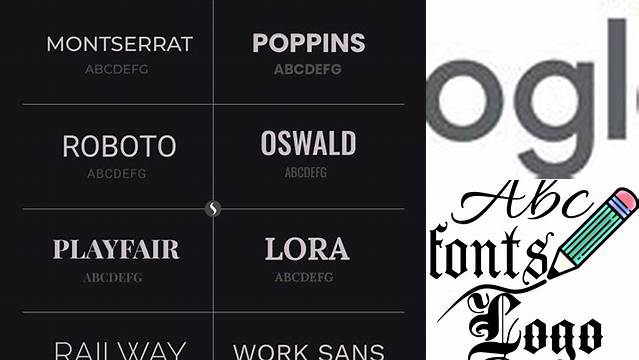
Google Fonts Logo Maker: Design Your Brand
So, you're looking to create a logo, huh? And you want to leverage the power of Google Fonts? Awesome! You've come to the right place. Let's dive deep into how you can use Google Fonts and various logo makers to craft a stunning brand identity. This article is your ultimate guide, breaking down everything you need to know, from selecting the perfect font to using online tools effectively. Forget generic logos; let's make something that truly represents you.
1. Understanding the Basics of Google Fonts
Google Fonts is a treasure trove for designers and creators, offering a vast library of free, open-source fonts. Understanding the basics is crucial before you jump into logo creation. These fonts are not only free but also incredibly versatile, suitable for everything from website headings to print materials. When you're thinking about your logo, the font is the cornerstone. It conveys the personality and tone of your brand. Is it playful? Serious? Elegant? The right font will communicate all of this at a glance. We'll explore different types of fonts – serif, sans-serif, display, and handwriting – and how each can impact your logo's overall feel. Think of it this way: your font choice is like your brand's voice. You want it to be clear, consistent, and captivating.
Choosing the right font can be a game-changer for your brand identity. Google Fonts gives you a huge playground to experiment with different styles and combinations. But with so many options, it can feel overwhelming. Don't worry, guys! We'll break it down step by step. We'll look at specific font pairings that work well together, giving your logo a professional and polished look. We’ll also discuss the importance of readability. A beautiful font is useless if your audience can’t easily read your logo. So, let’s make sure your logo is not only visually appealing but also highly functional. Remember, your logo is often the first impression people have of your brand, so make it count!
2. Exploring Free Logo Makers with Google Fonts Integration
Alright, let's get into the nitty-gritty. There are tons of free logo makers out there, but not all of them play nicely with Google Fonts. We need to find the gems that do. Exploring free logo makers with Google Fonts integration is a smart move because it gives you a fantastic blend of flexibility and cost-effectiveness. These tools typically offer drag-and-drop interfaces, making the design process super user-friendly, even if you're not a professional designer. We’ll highlight some of the top platforms, like Canva, LogoMaker, and DesignEvo, and show you how to use their Google Fonts integration to your advantage.
We'll also discuss the pros and cons of using free logo makers. Sure, they're free (which is awesome!), but they might have limitations in terms of customization or file formats. Knowing these trade-offs upfront will help you make informed decisions. We'll look at features like pre-designed templates, icon libraries, and color palettes, and how you can tweak them to create a unique logo that truly stands out. Plus, we’ll cover tips on avoiding common pitfalls, like using generic templates without personalization. Let's ensure your logo doesn't look like everyone else's! Remember, a good logo should be memorable and instantly recognizable. So, let’s get hands-on and start exploring these free tools to unleash your creative potential.
3. Step-by-Step Guide to Designing a Logo with Google Fonts
Okay, time for action! Let’s walk through a step-by-step guide to designing a logo with Google Fonts. This isn’t just about picking a font and slapping it on a page; it's about crafting a cohesive visual identity. We'll start with brainstorming – defining your brand’s personality, target audience, and key message. What feelings do you want your logo to evoke? Professionalism? Fun? Trust? These are crucial questions to answer before you even open a logo maker. Then, we'll move on to selecting the right font. We'll explore font pairings, contrast, and hierarchy, showing you how to combine different Google Fonts to create a visually dynamic logo.
Next, we'll dive into the practical steps of using a logo maker. We’ll cover everything from setting up your canvas to adding shapes, icons, and colors. We'll emphasize the importance of white space and balance – key elements in any great logo design. We'll also discuss the importance of creating variations of your logo – horizontal, vertical, and icon-only – to ensure it looks great across different platforms and applications. And finally, we'll cover exporting your logo in the right formats (like PNG and SVG) for web and print use. By the end of this guide, you’ll have a clear roadmap for creating a logo you're proud of! Remember, it's all about the details. So, let's roll up our sleeves and get started.
4. Choosing the Right Font Style for Your Brand
The style of font that you use can significantly impact the feel of your logo. Choosing the right font style for your brand is about matching the font's personality to your brand's identity. For example, a serif font (like Times New Roman or Georgia) often conveys a sense of tradition, authority, and sophistication. These are great for businesses aiming for a classic or formal look. On the other hand, a sans-serif font (like Arial or Helvetica) tends to feel more modern, clean, and approachable. These work well for tech companies or brands that want to project a contemporary vibe.
We’ll also explore display fonts, which are designed to be eye-catching and attention-grabbing. These are great for logos but should be used sparingly, as they can be less readable in body text. And let's not forget handwriting fonts, which can add a personal and creative touch to your logo. However, these should be chosen carefully to ensure they remain legible and professional. We'll provide examples of successful logo designs that use different font styles effectively. Remember, the right font not only looks good but also communicates your brand's values and personality. So, let's make sure you're sending the right message.
5. Best Google Fonts for Logo Design in 2024
Staying up-to-date with the latest font trends can give your logo a fresh and modern edge. The best Google Fonts for logo design in 2024 include a mix of timeless classics and emerging favorites. We'll highlight some top contenders, like Montserrat, Open Sans, Roboto, and Lato, which are known for their versatility and readability. These fonts are like the Swiss Army knives of the font world – they can adapt to almost any brand aesthetic. But we’ll also explore some more unique and expressive options, like Playfair Display, Raleway, and Oswald, which can add character and flair to your logo.
We’ll discuss why these fonts are particularly well-suited for logo design, focusing on factors like legibility, scalability, and visual appeal. We'll also look at how these fonts perform in different contexts – both online and in print. And we’ll share examples of brands that are using these fonts effectively in their logos. Remember, a great logo font is one that not only looks good but also stands the test of time. So, let’s make sure you're choosing a font that will keep your logo looking fresh and relevant for years to come. It’s all about striking that perfect balance between trendiness and timelessness.
6. Combining Google Fonts for a Unique Logo
One of the best ways to create a truly unique logo is by combining different Google Fonts. Combining Google Fonts for a unique logo is an art form in itself. It's about finding fonts that complement each other, creating a visual harmony that elevates your brand. The key is to create contrast without clashing. For example, you might pair a bold, attention-grabbing font for your brand name with a simpler, more readable font for your tagline or supporting text. Think of it like a duet – the fonts should sing together, not fight for the spotlight.
We'll provide specific examples of font pairings that work well together, such as pairing a serif font (like Merriweather) with a sans-serif font (like Open Sans). We'll also discuss the importance of hierarchy – using different font sizes, weights, and styles to guide the viewer's eye. We'll share tips on how to experiment with different combinations and how to avoid common pitfalls, like using too many fonts or choosing fonts that are too similar. Remember, the goal is to create a logo that is visually interesting and easy to read. So, let’s explore the endless possibilities of font pairing and create a logo that truly stands out from the crowd. It’s all about finding that perfect balance and visual harmony.
7. The Psychology of Fonts in Logo Design
Fonts aren't just about aesthetics; they also carry psychological weight. The psychology of fonts in logo design is a fascinating area that delves into how different typefaces evoke different emotions and associations. For example, bold, geometric fonts often convey strength, stability, and confidence, while softer, more rounded fonts can feel friendly, approachable, and playful. Script fonts can evoke elegance, creativity, and a personal touch, but they need to be used judiciously to ensure readability.
We'll explore how different font families – serif, sans-serif, display, and script – impact brand perception. We’ll discuss how the choice of font can influence how your target audience perceives your brand. Do you want to be seen as trustworthy and reliable? Innovative and cutting-edge? The font you choose can help you communicate these qualities. We'll also look at how cultural factors can influence font perception. What might be considered a sophisticated font in one culture could be seen as old-fashioned in another. Remember, your logo is a powerful visual symbol, and the font plays a crucial role in shaping its message. So, let’s use the psychology of fonts to our advantage and create a logo that resonates with your target audience on a deeper level.
8. Scalability: Ensuring Your Logo Looks Great Everywhere
Your logo needs to look good not just on a website but also on business cards, social media profiles, and even large-format prints. Scalability: Ensuring your logo looks great everywhere is a critical aspect of logo design. A logo that looks crisp and clear on a computer screen might become pixelated or distorted when scaled up for a billboard. This is where vector graphics come into play. Vector graphics are based on mathematical equations, which means they can be scaled infinitely without losing quality. This is in contrast to raster graphics (like JPEGs), which are made up of pixels and can become blurry when enlarged.
We'll discuss the importance of designing your logo in a vector format, such as SVG or EPS. We’ll explain how to export your logo in different sizes and formats for various applications. We'll also cover the importance of testing your logo on different devices and platforms to ensure it looks great everywhere. We'll share tips on creating simplified versions of your logo for small spaces, like favicons or app icons. Remember, a scalable logo is a versatile logo, and versatility is key to a strong brand identity. So, let’s make sure your logo looks its best, no matter where it appears. It’s all about ensuring consistency and quality across all your branding materials.
9. Color Psychology in Logo Design with Google Fonts
Colors carry deep meanings and can significantly affect how your logo is perceived. Color psychology in logo design with Google Fonts is all about understanding how different colors evoke different emotions and associations, and then using that knowledge to create a logo that resonates with your target audience. For example, blue often conveys trust, reliability, and professionalism, making it a popular choice for corporate logos. Red can evoke excitement, passion, and energy, but it can also be associated with danger or aggression, so it should be used carefully. Green is often associated with nature, health, and growth, while yellow can convey optimism, happiness, and warmth.
We'll explore the meanings of different colors and how they can be combined to create different effects. We’ll discuss how to choose a color palette that aligns with your brand's personality and values. We'll also look at the importance of considering cultural differences in color perception. What might be a positive color in one culture could be seen as negative in another. We'll also cover how to ensure your logo looks good in both color and black and white. Remember, color is a powerful tool in logo design, and when used effectively, it can help you create a logo that is both visually appealing and emotionally resonant. So, let’s dive into the world of color and create a palette that perfectly captures your brand’s essence.
10. The Role of Icons and Symbols in Logo Design
Sometimes, a simple font-based logo isn't enough. The role of icons and symbols in logo design is to add visual interest, communicate your brand's message more effectively, and create a memorable identity. An icon can be a graphical representation of your product, service, or industry, or it can be an abstract symbol that embodies your brand's values. For example, a travel agency might use an icon of a globe or a plane, while a tech company might opt for a more abstract, geometric symbol.
We'll discuss how to choose the right icon for your logo and how to integrate it seamlessly with your chosen Google Font. We’ll explore different icon styles – minimalist, geometric, illustrative – and how they can impact your logo's overall feel. We'll also cover the importance of ensuring your icon is scalable and looks good in both color and black and white. We'll share tips on creating your own icons or finding high-quality, royalty-free icons online. Remember, an icon can be a powerful visual shorthand for your brand, but it should always complement your chosen font and overall design. So, let’s explore the possibilities of icon integration and create a logo that is both visually striking and highly communicative.
11. Creating Variations of Your Logo
One logo isn't enough in today's multi-platform world. Creating variations of your logo is essential for ensuring your brand identity remains consistent and recognizable across different contexts. You'll need a primary logo for your website and general branding materials, but you'll also need variations for smaller spaces, like favicons and social media profiles, and for different orientations, like horizontal and vertical layouts.
We'll discuss the different types of logo variations you should create, including a full logo (with your brand name and tagline), a logo mark (an icon or symbol), and a wordmark (just your brand name). We’ll explain how to adapt your logo for different sizes and aspect ratios without losing legibility or impact. We'll also cover the importance of maintaining consistency across all your logo variations. The color palette, font choices, and overall style should remain consistent, even if the layout or elements change. Remember, versatility is key to a strong brand identity, and having a set of logo variations ensures your brand looks its best, no matter where it appears. So, let’s explore how to create a suite of logos that work together seamlessly and strengthen your brand presence.
12. Using Google Fonts in Dark Mode Logos
Dark mode is increasingly popular, so your logo needs to look great on both light and dark backgrounds. Using Google Fonts in dark mode logos requires careful consideration of contrast and legibility. A font that looks crisp and clear on a white background might become difficult to read on a dark background, especially if it's a light or thin font.
We'll discuss how to choose fonts that work well in dark mode, focusing on factors like weight, spacing, and color. We’ll explain how to adjust your logo's colors for dark mode, ensuring there's sufficient contrast between the text and the background. We'll also look at how to use outlines or shadows to make your logo stand out on dark backgrounds. We'll share examples of logos that have been successfully adapted for dark mode. Remember, a dark mode logo isn't just about inverting colors; it's about creating a visually appealing and highly legible logo that works seamlessly in both light and dark environments. So, let’s explore the nuances of dark mode design and ensure your logo looks its best, no matter the setting.
13. The Importance of White Space in Logo Design
Sometimes, what you leave out is just as important as what you include. The importance of white space in logo design cannot be overstated. White space (also known as negative space) is the empty area around and within the elements of your logo. It's not just unused space; it's a powerful design tool that can enhance legibility, create balance, and add sophistication to your logo.
We'll discuss how to use white space effectively to create a clean, uncluttered logo. We’ll explain how white space can help to draw the viewer's eye to the key elements of your logo. We'll also look at how white space can be used creatively to create hidden meanings or visual illusions. We'll share examples of logos that make masterful use of white space. Remember, white space is not a luxury; it's a necessity for good logo design. It’s the breathing room that allows your logo to stand out and make a lasting impression. So, let’s embrace the power of negative space and create a logo that is both visually appealing and highly effective.
14. Avoiding Common Logo Design Mistakes
Creating a great logo is about more than just aesthetics; it's about avoiding pitfalls that can undermine your brand identity. Avoiding common logo design mistakes is crucial for ensuring your logo is both visually appealing and highly effective. One common mistake is using too many fonts or colors. A logo should be simple and uncluttered, with a limited palette of colors and fonts. Another mistake is using generic clip art or templates without personalization. Your logo should be unique and reflect your brand's personality.
We'll discuss these and other common mistakes, such as choosing a font that is difficult to read, creating a logo that is too complex or detailed, and failing to consider scalability. We’ll explain how to avoid these pitfalls and create a logo that is both professional and memorable. We'll also cover the importance of getting feedback from others before finalizing your logo. Remember, a great logo is one that is simple, memorable, versatile, and relevant to your brand. So, let’s learn from the mistakes of others and create a logo that truly shines.
15. Testing Your Logo with Your Target Audience
What looks good to you might not resonate with your target audience. Testing your logo with your target audience is an essential step in the logo design process. It allows you to gather valuable feedback and ensure your logo is communicating the right message. You can test your logo by showing it to a group of people who represent your target market and asking for their opinions.
We'll discuss how to conduct effective logo testing, including what questions to ask and how to interpret the results. We’ll explain how to use different testing methods, such as surveys, focus groups, and A/B testing. We'll also cover the importance of being open to feedback and willing to make changes based on the results. Remember, your logo is a visual representation of your brand, and it should resonate with your target audience. So, let’s make sure you’re creating a logo that speaks to the people you’re trying to reach.
16. The Legal Aspects of Using Fonts in Logos
It's crucial to understand the licensing terms of any fonts you use in your logo. The legal aspects of using fonts in logos are often overlooked, but they are essential for protecting your brand and avoiding legal issues. Google Fonts are open-source, which means they can be used freely for both personal and commercial purposes. However, it's still a good idea to review the specific licensing terms for each font, just to be sure.
We'll discuss the different types of font licenses and what they allow you to do. We’ll explain how to check the license for a Google Font and ensure you're using it legally. We'll also cover the importance of protecting your logo with a trademark. Remember, your logo is a valuable asset, and it's important to protect your rights to it. So, let’s navigate the legal landscape of font usage and ensure your logo is both creative and legally sound.
17. Google Fonts Logo Maker for Mobile Devices
Designing on the go? Many logo makers have mobile versions. Google Fonts logo maker for mobile devices allows you to create and edit your logo from your smartphone or tablet, giving you the flexibility to work on your branding whenever and wherever inspiration strikes. Mobile logo makers often offer the same features as their desktop counterparts, including access to Google Fonts, icon libraries, and color palettes.
We'll discuss the best mobile logo maker apps that integrate with Google Fonts. We’ll explain how to use these apps effectively to design a professional-looking logo on your mobile device. We'll also cover the pros and cons of mobile logo design, such as the smaller screen size and the potential for distractions. Remember, mobile logo makers are a convenient tool for entrepreneurs and designers on the move, but it's important to use them strategically and ensure your logo looks great on all devices. So, let’s explore the world of mobile logo design and create a logo that is both accessible and visually stunning.
18. Animating Your Logo with Google Fonts
Add a dynamic touch to your brand with an animated logo. Animating your logo with Google Fonts can make your brand stand out and create a memorable impression. An animated logo can be used on your website, social media profiles, and in video content, adding a touch of flair and sophistication to your brand identity.
We'll discuss how to animate your logo using different software and techniques. We’ll explain how to choose the right animations for your logo and brand personality. We'll also cover the importance of keeping your animations subtle and professional. Overly flashy animations can be distracting and detract from your brand's message. Remember, an animated logo is a powerful way to engage your audience and make your brand more memorable, but it should always be used strategically and with good taste. So, let’s explore the possibilities of logo animation and create a brand identity that truly moves.
19. Google Fonts Logo Maker for E-commerce Brands
E-commerce brands need logos that convey trust and professionalism. Google Fonts logo maker for e-commerce brands is a valuable tool for creating a brand identity that resonates with online shoppers. An e-commerce logo should be clean, modern, and easy to recognize, both on your website and on product packaging.
We'll discuss how to choose the right Google Fonts and design elements for your e-commerce logo. We’ll explain how to create a logo that conveys your brand's values and appeals to your target customers. We'll also cover the importance of testing your logo on different devices and screen sizes to ensure it looks great on all e-commerce platforms. Remember, your logo is often the first impression customers have of your e-commerce brand, so it's crucial to make it a good one. So, let’s explore the world of e-commerce logo design and create a brand identity that drives sales.
20. Using Google Fonts for Minimalist Logo Design
Less is often more, especially in logo design. Using Google Fonts for minimalist logo design is a popular approach that focuses on simplicity, clarity, and elegance. A minimalist logo typically features a clean, uncluttered design with a limited palette of colors and fonts. The emphasis is on conveying your brand's message in the most direct and impactful way possible.
We'll discuss how to choose the right Google Fonts and design elements for a minimalist logo. We’ll explain how to use white space effectively to create balance and visual interest. We'll also cover the importance of ensuring your minimalist logo is scalable and works well in different contexts. Remember, minimalist logos can be incredibly powerful, but they require careful attention to detail and a deep understanding of design principles. So, let’s explore the art of minimalism and create a logo that speaks volumes with just a few elements.
21. Google Fonts Logo Maker for Startups
Startups need to make a big impression on a budget. Google Fonts logo maker for startups is a cost-effective way to create a professional-looking brand identity without breaking the bank. A startup logo should be memorable, versatile, and reflect your company's values and mission. It should also be easily recognizable and adaptable to different platforms and formats.
We'll discuss how to leverage Google Fonts and free logo maker tools to create a compelling logo for your startup. We'll explore design strategies tailored for startups, focusing on simplicity, originality, and brand messaging. We'll also cover the importance of creating a strong brand identity that resonates with your target audience. Remember, your logo is a crucial element of your startup's brand, and it can significantly impact your success. So, let’s make the most of free resources and create a logo that sets your startup apart.
22. Creating a Timeless Logo with Google Fonts
A timeless logo will serve your brand for years to come. Creating a timeless logo with Google Fonts involves choosing classic font styles and design elements that won't go out of fashion. A timeless logo should be simple, versatile, and easily recognizable, regardless of current design trends. It should also accurately represent your brand's identity and values.
We'll discuss the characteristics of timeless logos and how to achieve them using Google Fonts. We'll explore design principles that promote longevity, such as simplicity, balance, and meaningful symbolism. We'll also cover the importance of avoiding trendy elements that might date your logo quickly. Remember, a timeless logo is an investment in your brand's future, ensuring it remains relevant and impactful for years to come. So, let’s focus on creating a logo that stands the test of time.
23. Google Fonts Logo Maker for Personal Brands
Your logo is your visual signature. Google Fonts logo maker for personal brands is a powerful tool for creating a logo that reflects your personality and professional identity. A personal brand logo should be authentic, memorable, and consistent with your overall brand image. It should also be versatile enough to use across various platforms, from your website to your social media profiles.
We'll discuss how to design a logo that effectively represents your personal brand using Google Fonts and other design resources. We'll explore strategies for conveying your unique qualities and professional expertise through your logo. We'll also cover the importance of aligning your logo with your brand values and target audience. Remember, your personal brand logo is a crucial element of your professional image, helping you make a lasting impression. So, let’s craft a logo that truly represents who you are and what you do.
24. Using Google Fonts to Create a Logo for Your Blog
Your blog's logo should capture its essence and attract readers. Using Google Fonts to create a logo for your blog can help you establish a unique visual identity that resonates with your target audience. A blog logo should be eye-catching, readable, and reflective of your blog's content and style. It should also be versatile enough to use across various platforms, including your website, social media channels, and promotional materials.
We'll discuss how to choose the right Google Fonts and design elements to create an effective blog logo. We'll explore design techniques for capturing your blog's unique voice and personality. We'll also cover the importance of considering your target audience when designing your logo. Remember, your blog logo is a key element of your brand, helping you attract and retain readers. So, let’s design a logo that truly represents your blog and its content.
25. Google Fonts Logo Maker for YouTube Channels
Stand out in the crowded world of YouTube with a unique logo. Google Fonts logo maker for YouTube channels provides the tools to create a visually appealing logo that captures your channel's personality. A YouTube channel logo should be eye-catching, memorable, and easily recognizable, even at small sizes. It should also be consistent with your channel's content and overall branding.
We'll discuss how to design a logo that effectively represents your YouTube channel using Google Fonts and other creative resources. We'll explore design strategies for making your logo stand out in search results and on video thumbnails. We'll also cover the importance of creating different logo variations for various YouTube platform elements. Remember, your YouTube channel logo is a key element of your brand, helping you attract viewers and build your subscriber base. So, let’s create a logo that grabs attention and represents your channel effectively.
26. The Future of Logo Design with Google Fonts
The world of logo design is constantly evolving. The future of logo design with Google Fonts looks bright, with ongoing advancements in font technology and design tools. We can expect to see more innovative font styles, more sophisticated logo maker platforms, and greater integration of AI in the design process.
We'll discuss the emerging trends in logo design and how Google Fonts will play a role in shaping the future. We'll explore the potential of dynamic fonts, variable fonts, and other cutting-edge technologies. We'll also consider how AI-powered design tools will impact the logo creation process. Remember, staying updated with the latest trends and technologies is crucial for creating logos that are both innovative and effective. So, let’s look ahead and prepare for the exciting future of logo design with Google Fonts.
27. Best Practices for Exporting Your Google Fonts Logo
The final step is crucial: exporting your logo in the correct formats. Best practices for exporting your Google Fonts logo ensure that your design looks its best across all platforms and applications. You'll need to export your logo in various formats, including vector formats (such as SVG and EPS) for scalability and raster formats (such as PNG and JPG) for web use.
We'll discuss the optimal settings for exporting your logo in each format, focusing on factors like resolution, file size, and color profiles. We'll explain how to choose the right format for different applications, such as website display, print materials, and social media profiles. We'll also cover the importance of preserving transparency when necessary. Remember, exporting your logo correctly is essential for maintaining its quality and visual impact. So, let’s ensure your logo looks perfect, no matter where it's used.
28. How to Trademark Your Google Fonts Logo
Protecting your brand identity is paramount. How to trademark your Google Fonts logo is a critical step in safeguarding your brand from unauthorized use. A trademark is a legal protection that gives you exclusive rights to use your logo in connection with your products or services.
We'll discuss the process of trademarking your logo, including the steps involved in searching for existing trademarks, filing an application, and responding to any challenges. We'll explain the benefits of trademark registration, such as the ability to enforce your rights in court. We'll also cover the importance of monitoring your trademark and taking action against any infringements. Remember, trademarking your logo is a valuable investment in your brand's future, providing legal protection and peace of mind. So, let’s explore the process of trademarking and ensure your brand identity is secure.
29. Integrating Your Google Fonts Logo into Your Brand Guidelines
Consistency is key to a strong brand identity. Integrating your Google Fonts logo into your brand guidelines ensures that your logo is used correctly and consistently across all your marketing materials. Brand guidelines are a set of rules and standards that define how your brand should be presented visually and verbally.
We'll discuss the elements of effective brand guidelines and how to incorporate your logo into them. We'll explain how to define your logo's colors, typography, and usage rules. We'll also cover the importance of providing clear examples of correct and incorrect logo usage. Remember, brand guidelines are essential for maintaining a consistent brand image and ensuring your logo is always presented in the best possible way. So, let’s develop comprehensive brand guidelines that safeguard your logo and strengthen your brand.
30. The Ethics of Using Free Logo Makers with Google Fonts
It's important to use free tools responsibly and ethically. The ethics of using free logo makers with Google Fonts involves respecting copyright laws, honoring licensing agreements, and giving credit where it's due. While Google Fonts are free for commercial use, it's still important to understand the licensing terms and abide by them. Similarly, when using free logo makers, you should be mindful of any limitations or restrictions on their use.
We'll discuss the ethical considerations of using free design resources, including the importance of avoiding plagiarism, respecting intellectual property rights, and supporting creators. We'll explain how to give proper attribution when necessary and how to avoid misusing free tools. Remember, using free resources ethically not only protects you legally but also promotes a culture of creativity and respect within the design community. So, let’s ensure we’re using free logo makers and Google Fonts in a responsible and ethical manner.